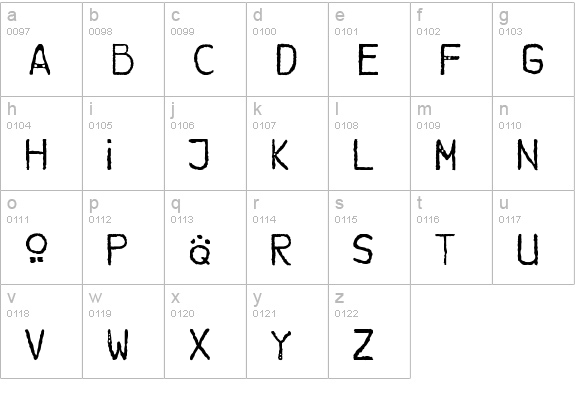
Introducing Brother Bear font, a whimsical and playful typeface that exudes charm and character. This unique font features hand-drawn elements that give it a warm and inviting feel, perfect for adding a touch of personality to your projects. Whether you're creating greeting cards, branding materials, or social media graphics, Brother Bear font is sure to make your designs stand out. Best of all, Brother Bear font is completely free to download at FontsMarket.com. So go ahead and unleash your creativity with this delightful and versatile font that will bring a smile to your audience's faces.